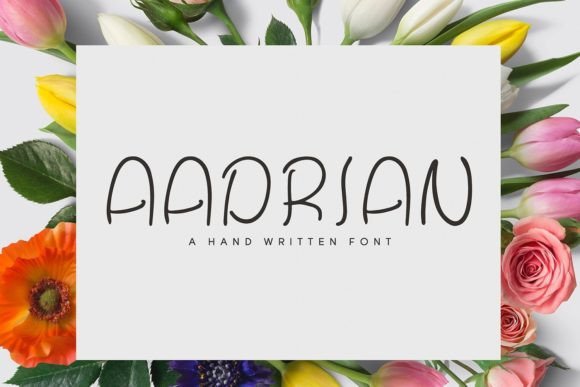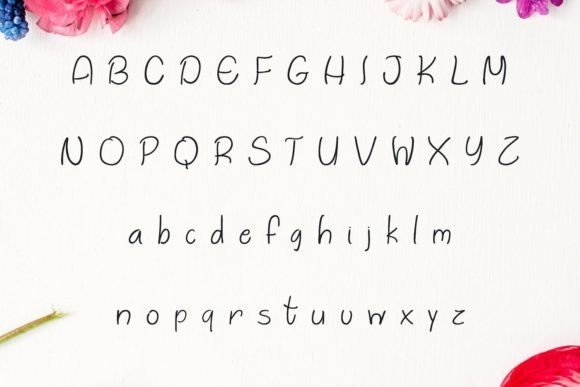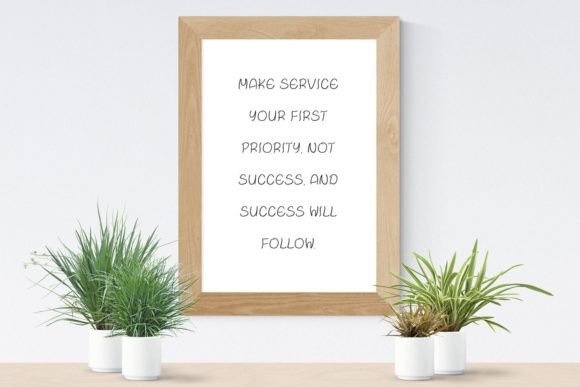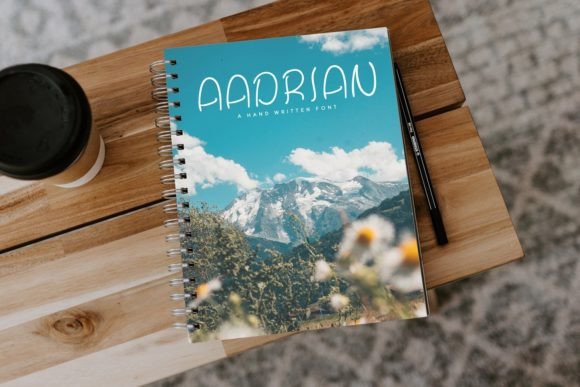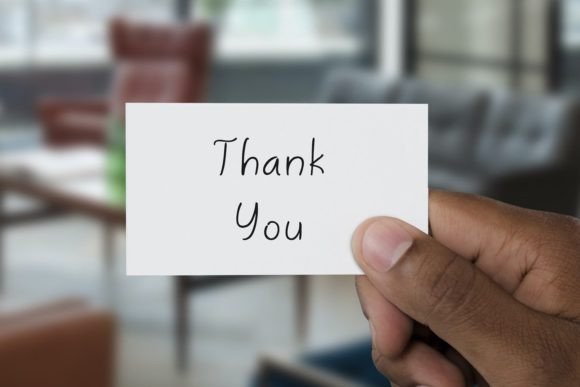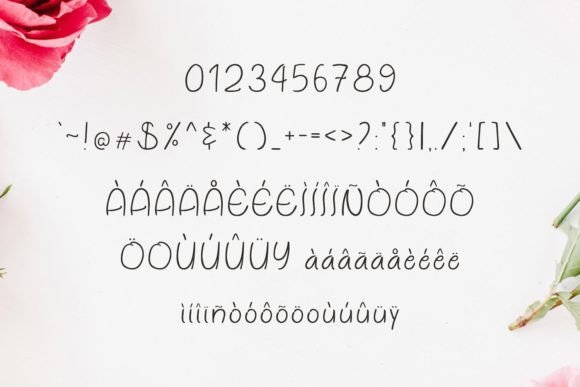
Aadrian Font
“Aadrian” is a beautiful, cute, and simple handwritten font designed to make your projects stand out with its distinctive charm. Complete with basic glyphs and multilingual support, “Aadrian” offers versatility for various design applications. Whether you’re working on packaging, presentations, logos, headlines, lettering, posters, branding, quotes, titles, magazine headings, web layouts, advertising, invitations, packaging design, books, or any creative design, this font proves to be a delightful and flexible choice.
The simplicity and cuteness of “Aadrian” make it suitable for a wide range of creative endeavors. Its handwritten style adds a personal touch to your text, creating designs that are both charming and approachable.
With its multilingual support, “Aadrian” ensures that your message can reach a global audience, making it a practical choice for diverse design projects.
In summary, “Aadrian” is more than just a font; it’s a creative asset crafted to enhance your designs with beauty and simplicity. Let this beautiful and cute handwritten font be the key to making your projects stand out, whether it’s in packaging, branding, or any other creative application.